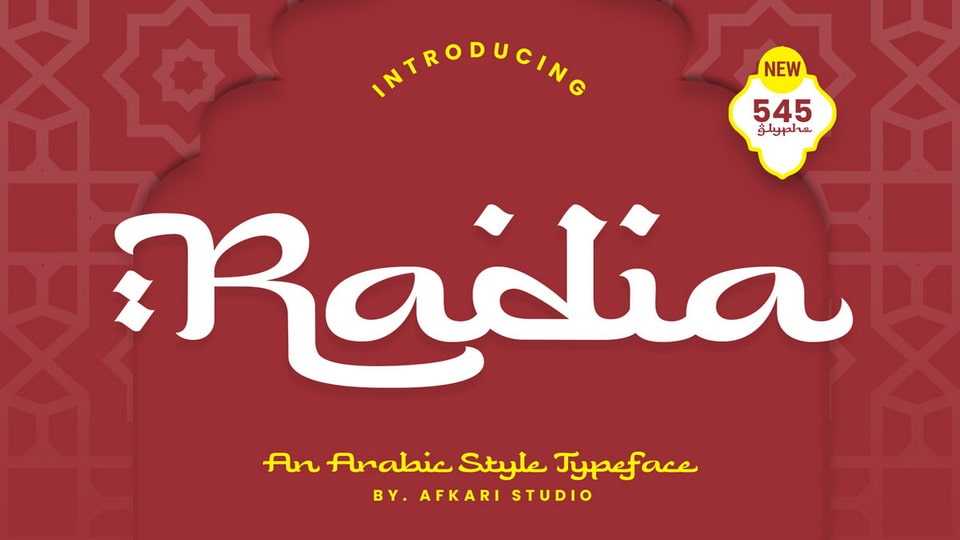
Download Radia font, a captivating Arabic-style typeface that embodies the essence of Ramadan and Islamic design. Immerse your projects in the rich cultural heritage of Arabic calligraphy with this exquisite font.
Designer: Afkari Studio